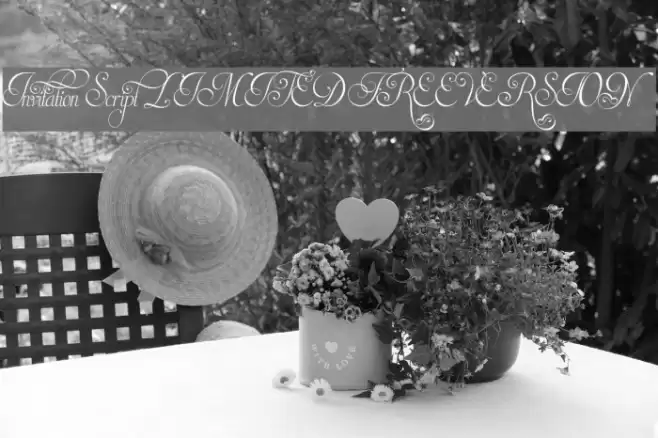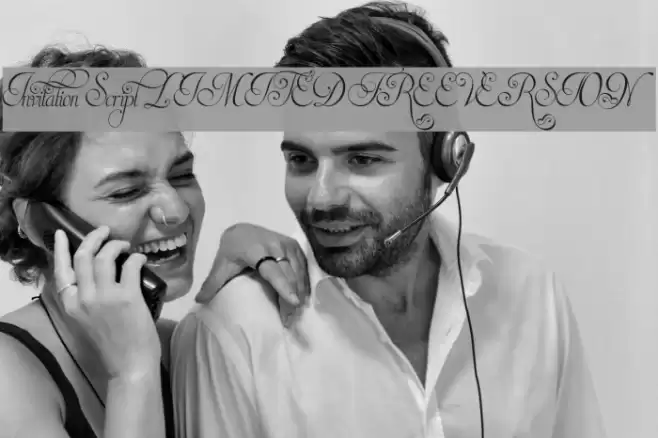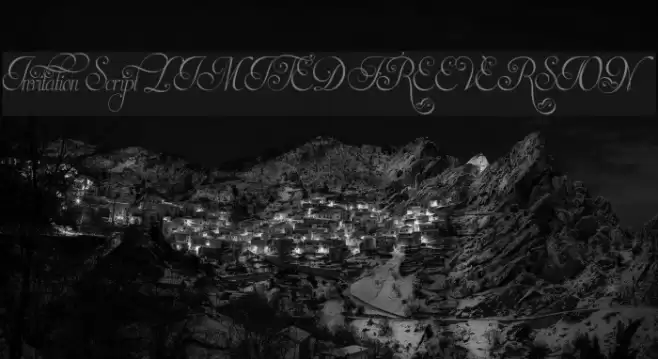
Invitation Script LIMITED FREE VERSION Font
Invitation Script LIMITED FREE VERSION Description
This elegant script font features intricate, flowing letterforms with elaborate swashes and flourishes, creating a sense of sophistication and formality. The uppercase letters are particularly ornate, with decorative loops and curves that add a touch of luxury. The lowercase letters maintain a consistent style, with smooth connections and a graceful appearance. The numerals are stylishly designed, matching the overall aesthetic of the font. Special characters are included, each crafted with the same attention to detail. This font is ideal for formal invitations, certificates, and any project that requires a touch of elegance.
An elegant script font with intricate swashes and flourishes, perfect for formal occasions from Uncategorized fonts.
- Proposed Projects: Ideal for wedding invitations, formal event programs, certificates, and luxury branding.
- Contrast: High
- Overall Style: Elegant
- Use Case: Headlines, Invitations, Certificates